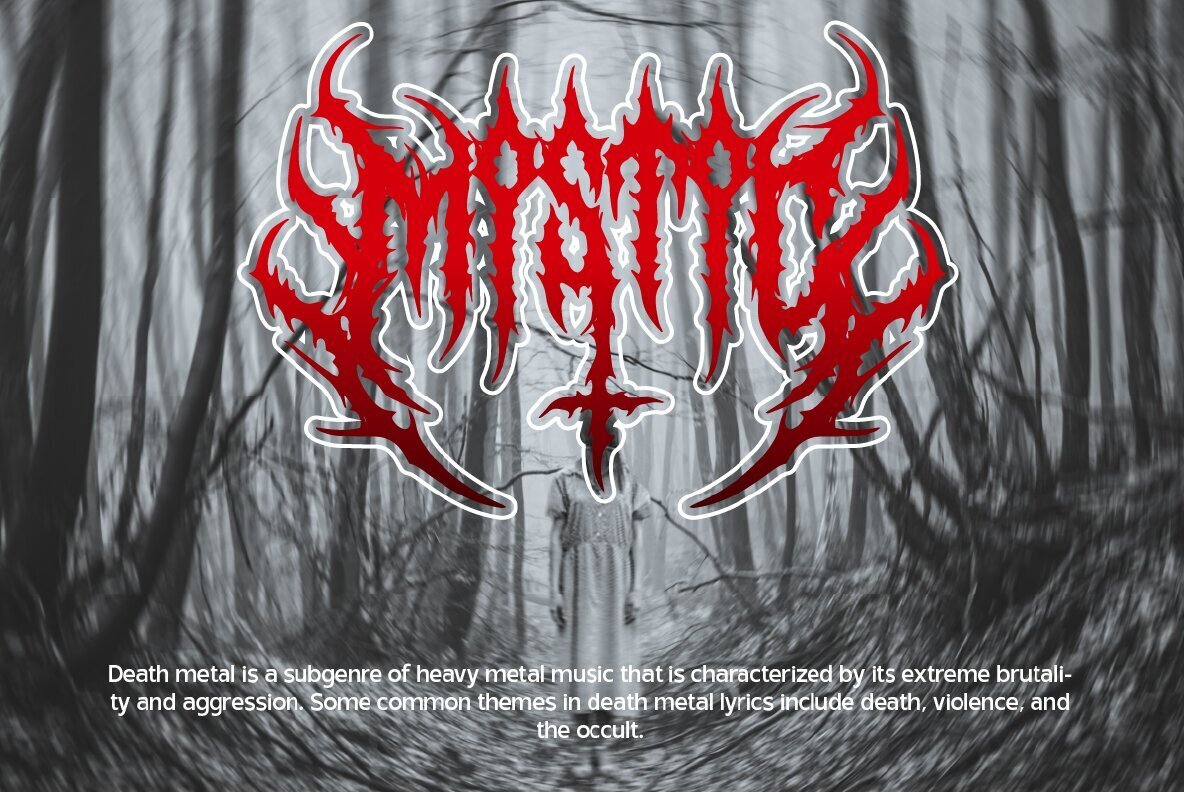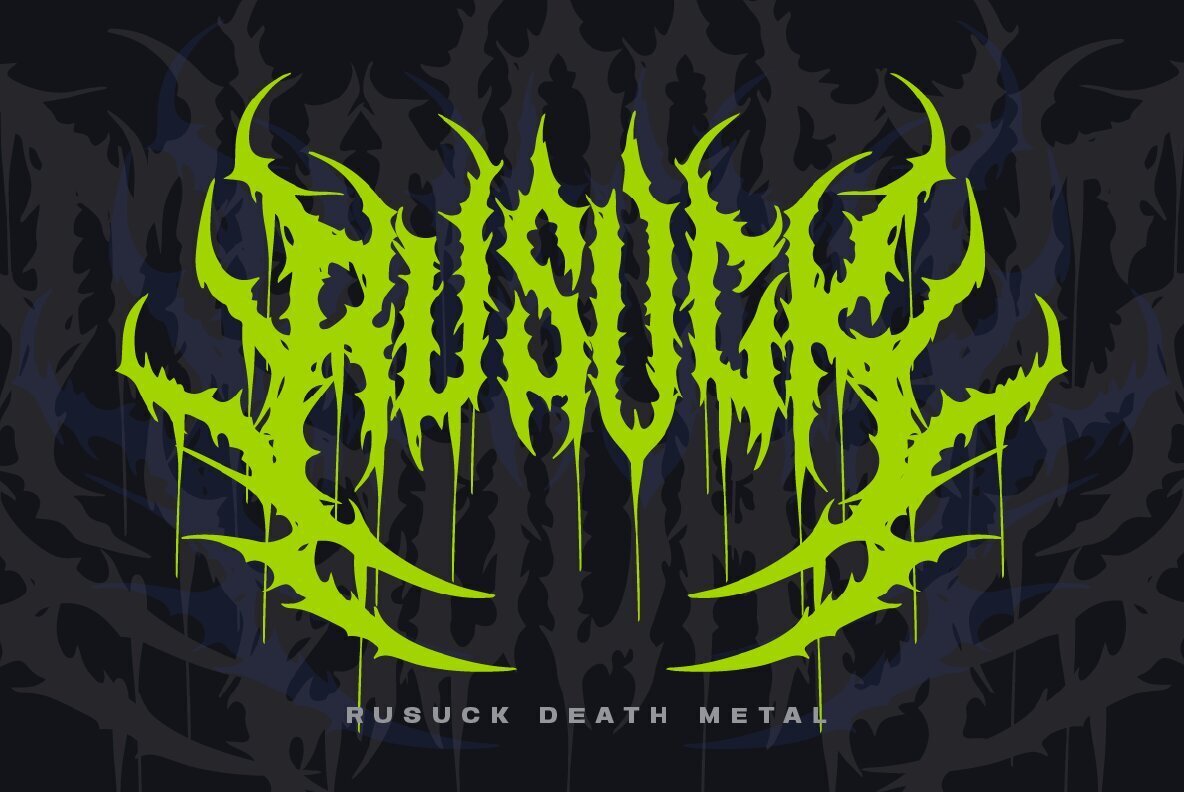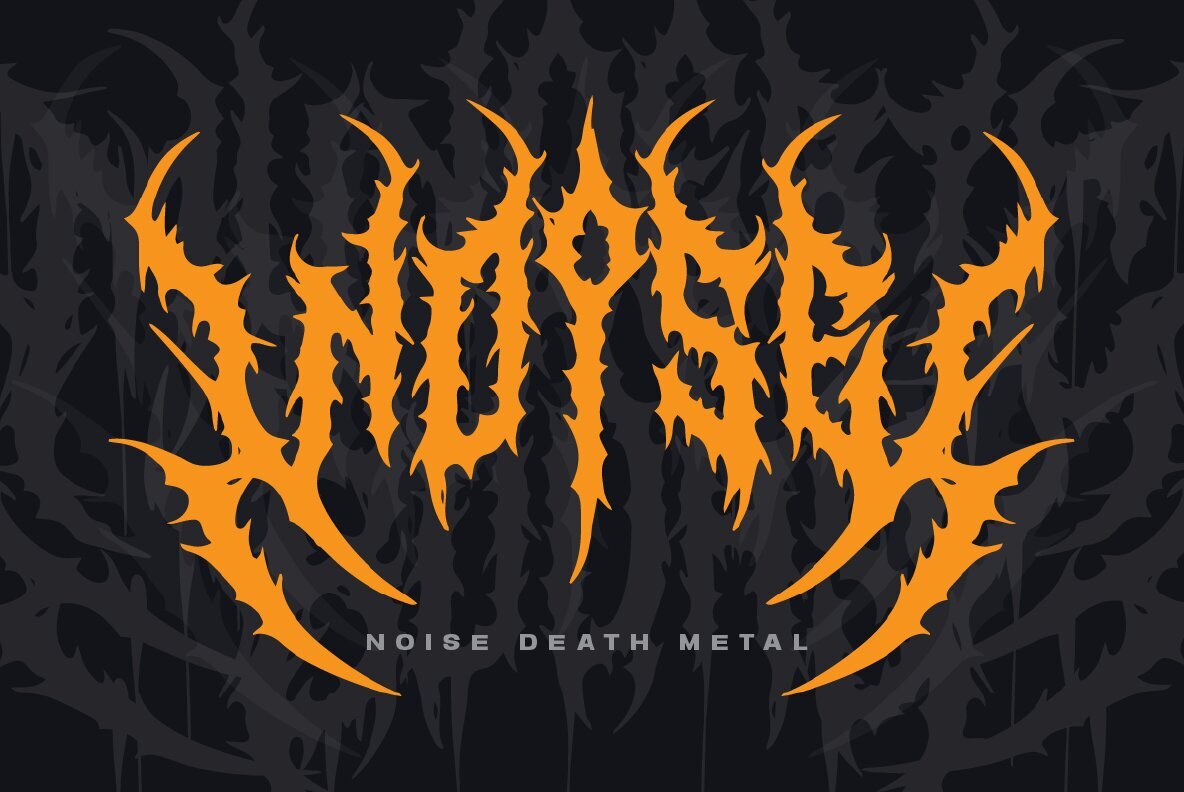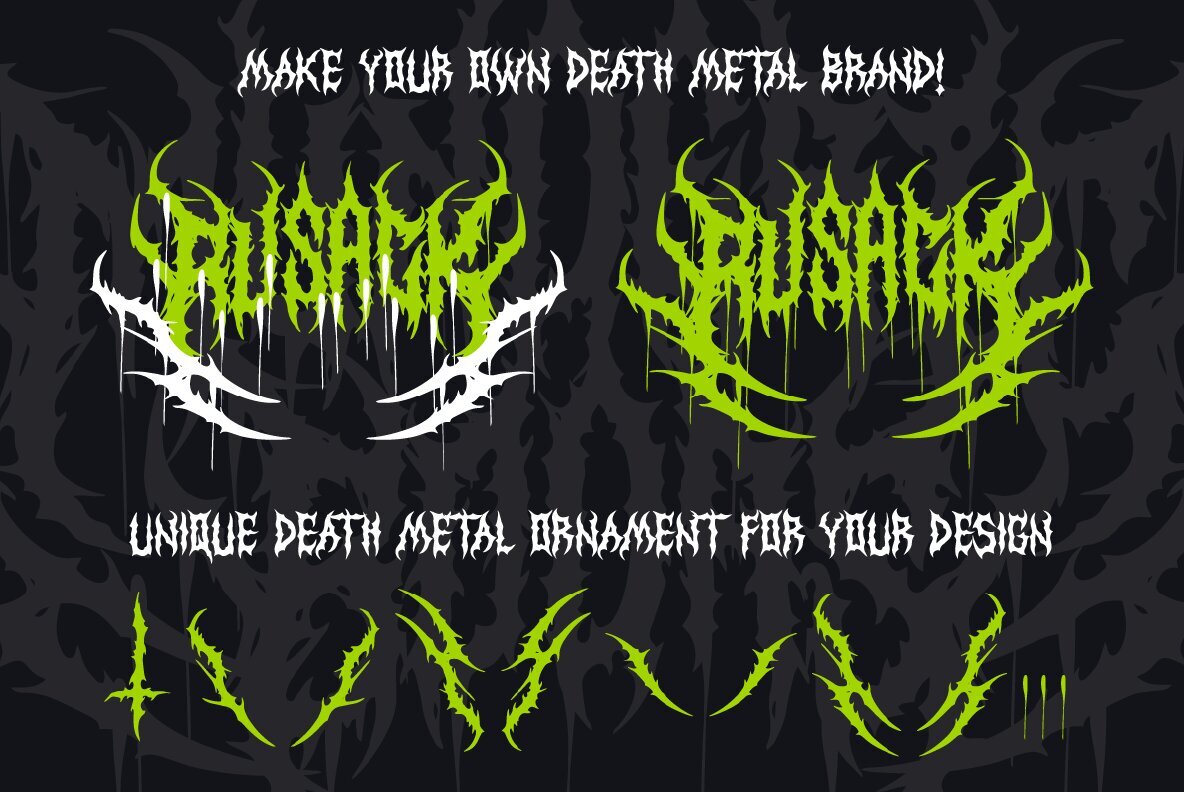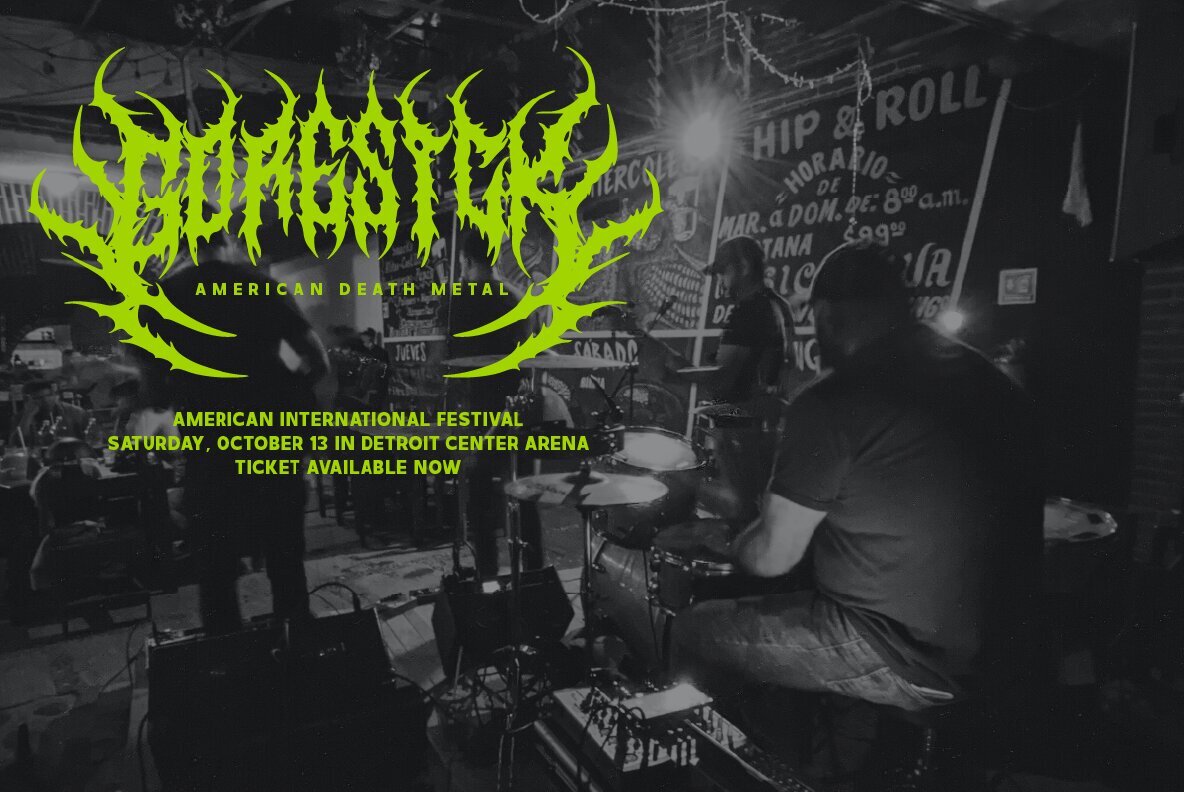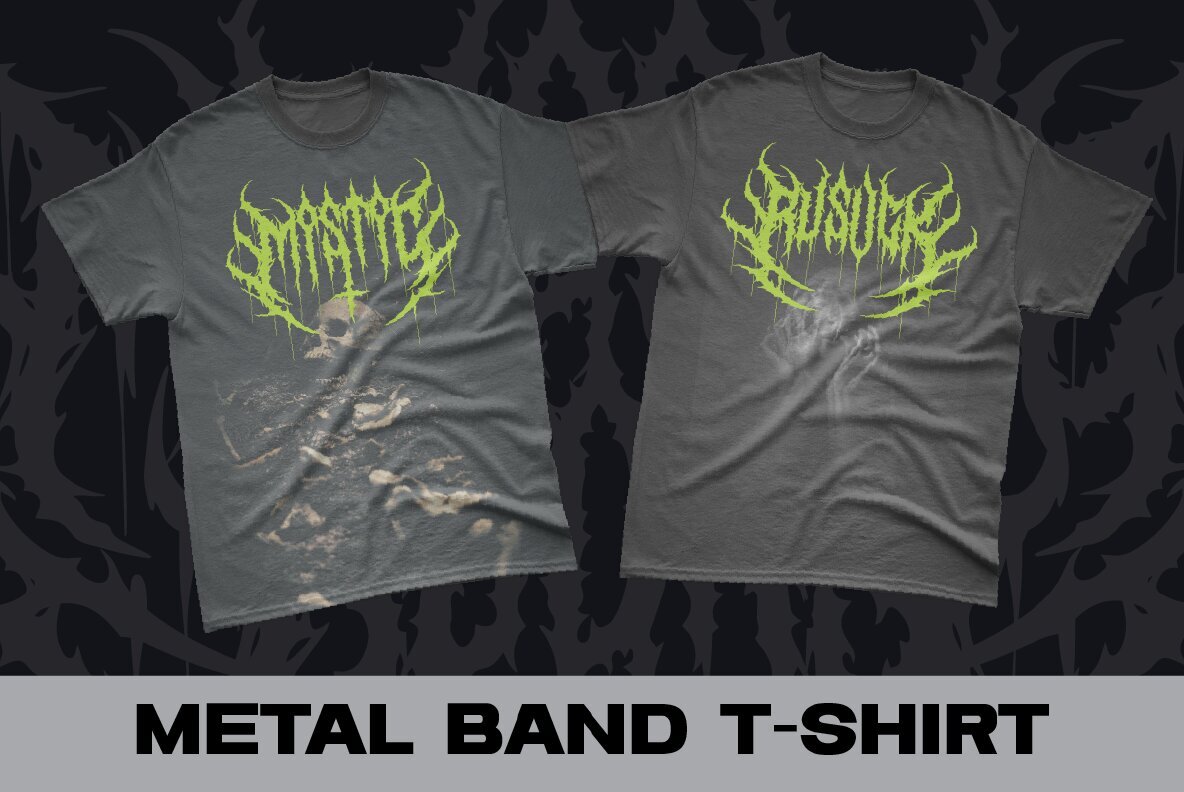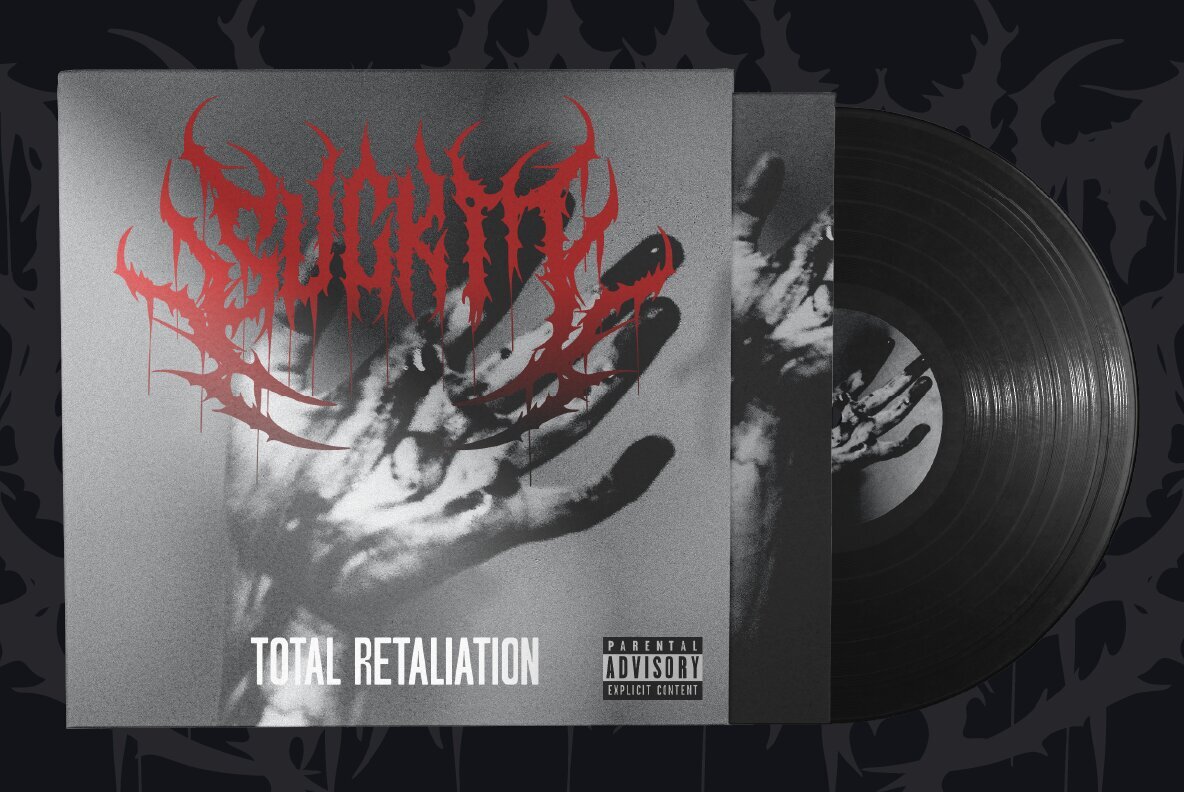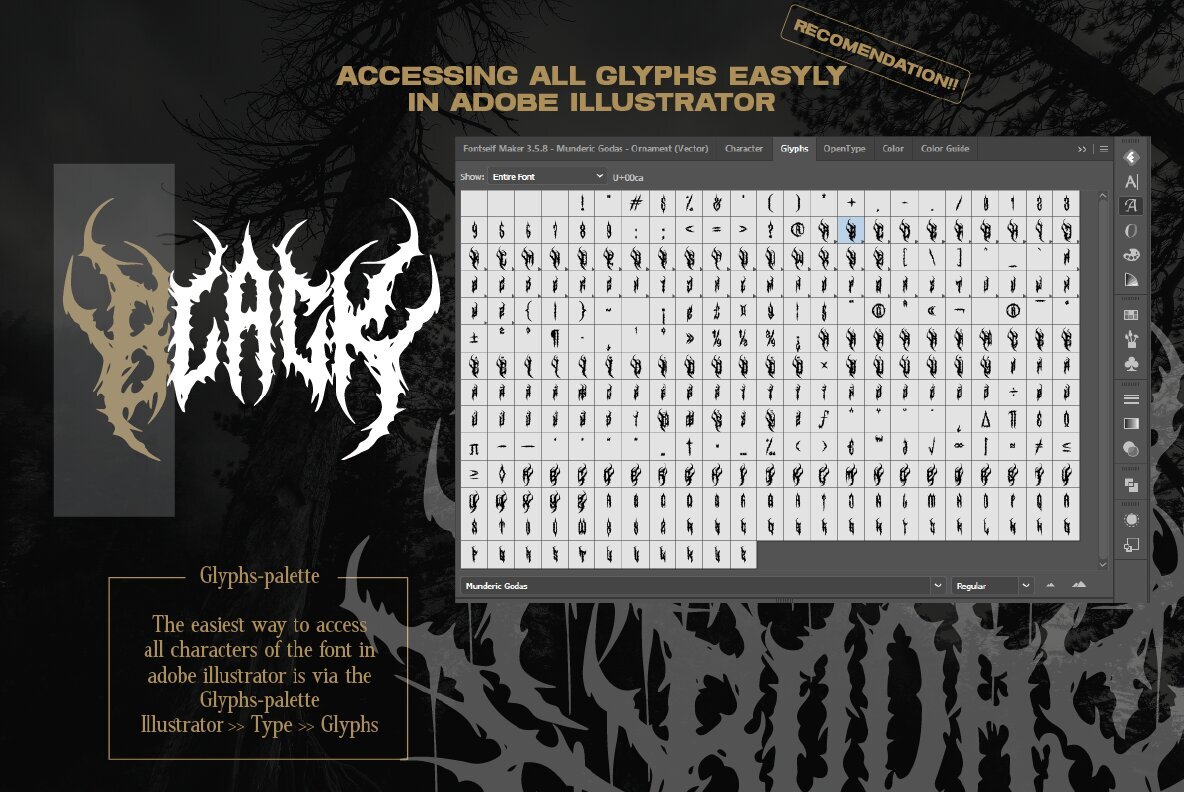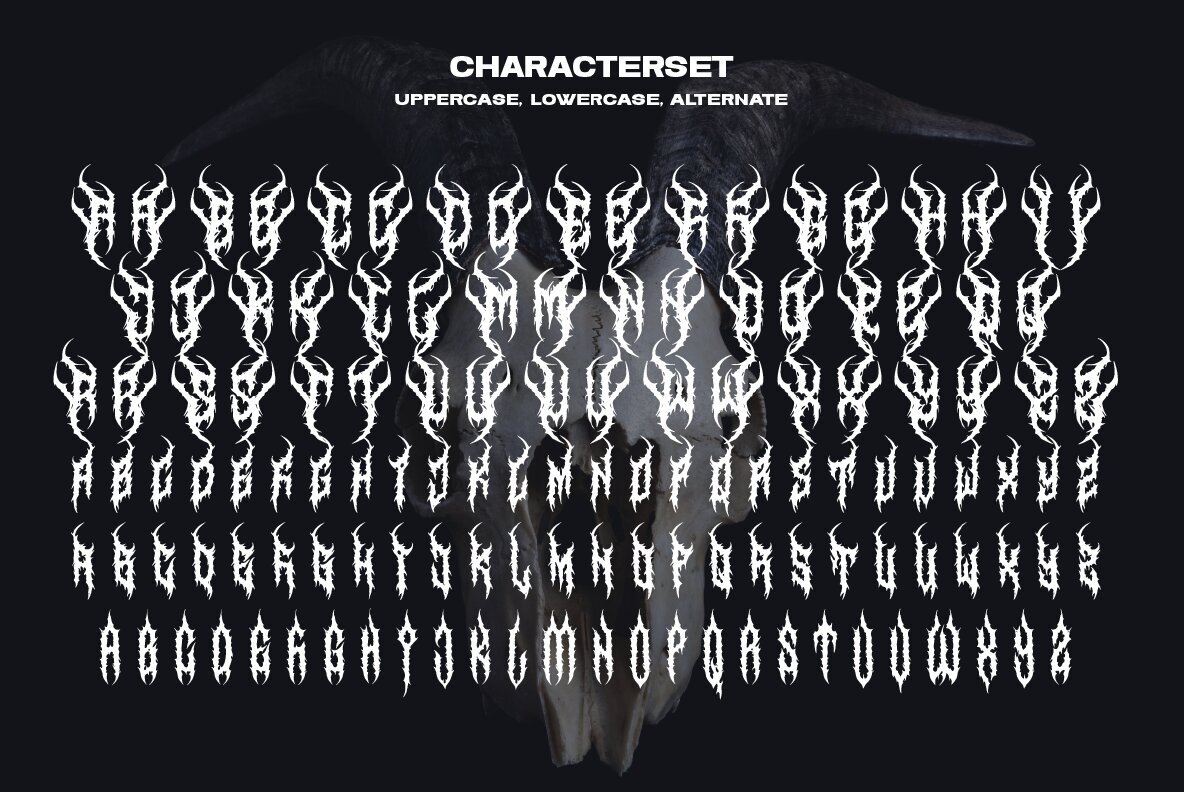
Munderic Godas Font
Designers within the metal music scene often seek unique typography to reflect the intensity and edge of their work. Munderic Godas offers a distinctive solution, combining traditional elements with a bold, contemporary flair. This typeface, with its creative alternate characters and ornamental symbols, is especially useful for designers creating logos for death metal and black metal bands. Dive into the world of dark aesthetics with its bold design, ensuring each project resonates with authenticity and intensity.Munderic Godas: Bold Typeface for Extreme Music Logos